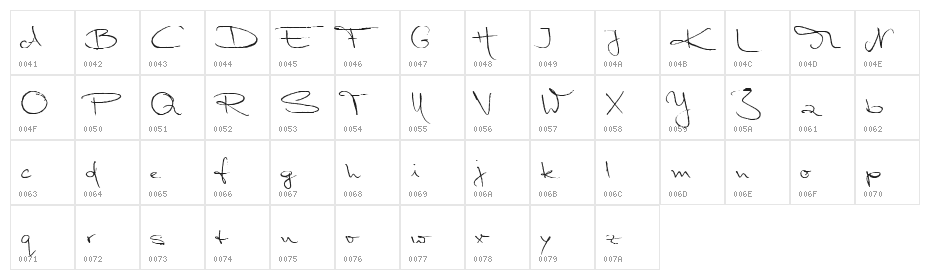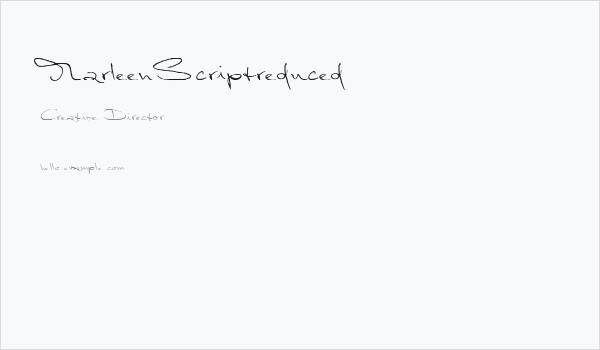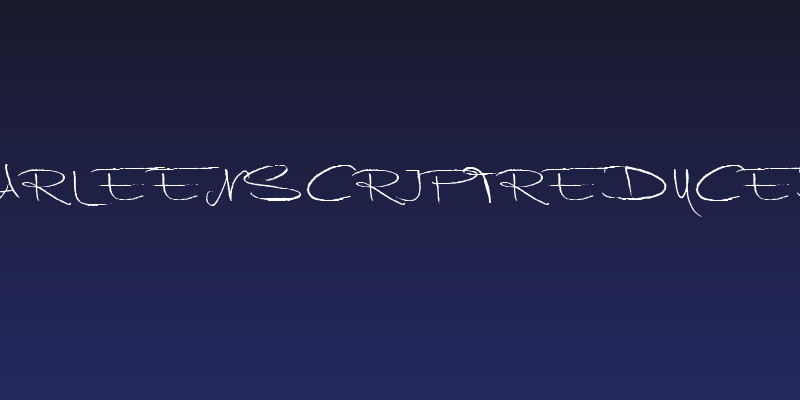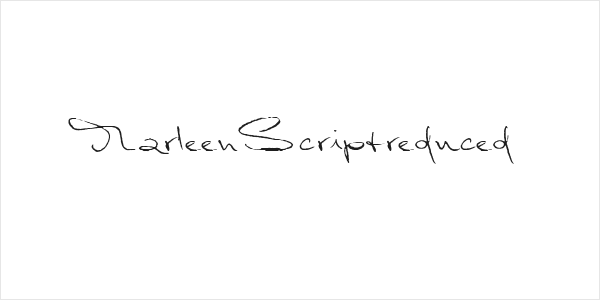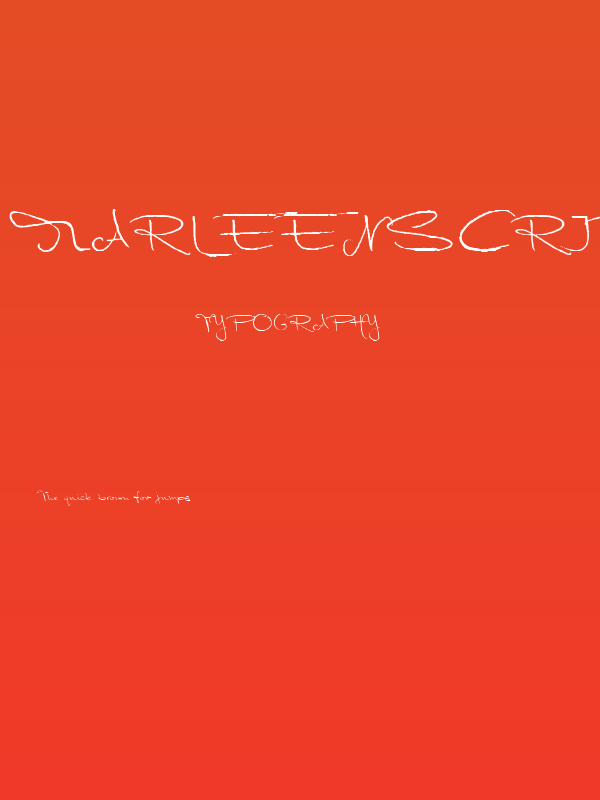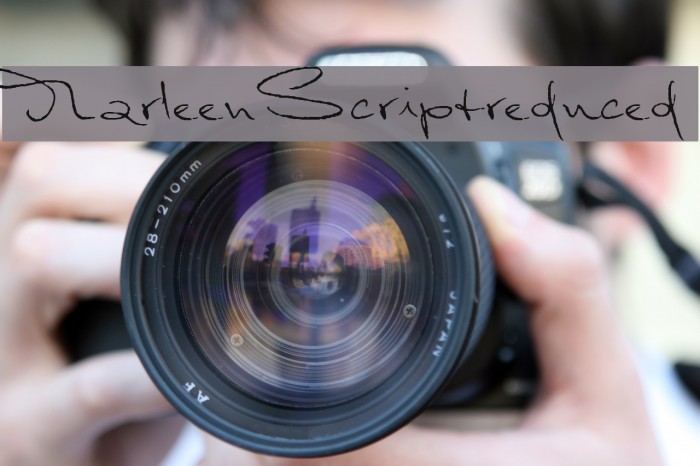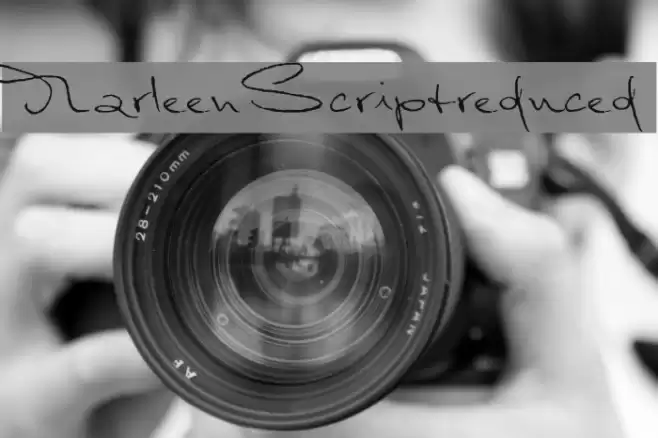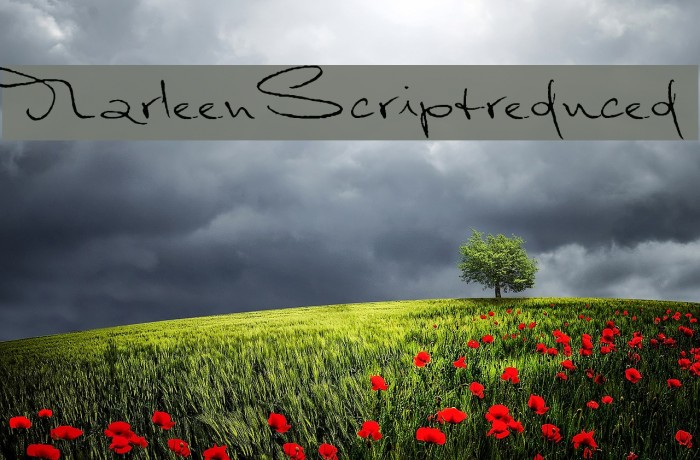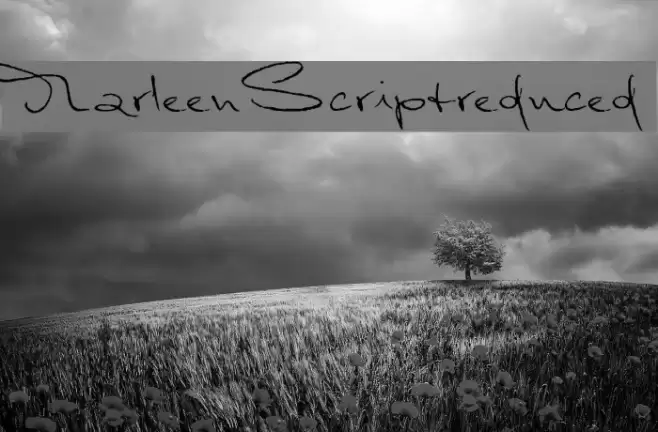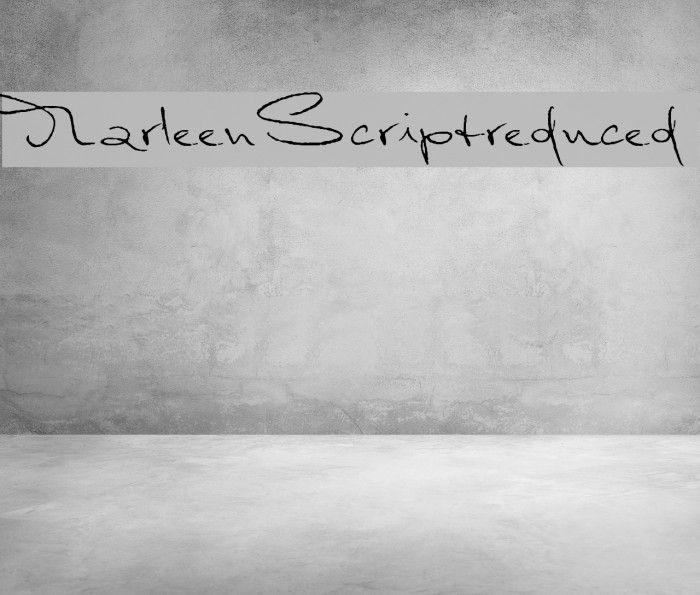
MarleenScriptreduced Font
MarleenScriptreduced Description
This font exudes a dynamic and artistic flair, characterized by its fluid, handwritten style. The strokes are varied, with a mix of thick and thin lines that create a sense of movement and spontaneity. Each letter is uniquely crafted, giving the font a personal and expressive touch. The uppercase letters are bold and prominent, while the lowercase letters maintain a consistent flow, enhancing readability. The overall design is reminiscent of a calligraphic script, making it suitable for creative and informal applications. The font's distinctive style makes it ideal for projects that require a personal, artistic touch.
| Overall Style | Artistic |
| Use Case | Logos, Artistic projects, Invitations |
| Proposed Projects | Ideal for greeting cards, invitations, artistic posters, and branding materials that require a personal touch. |